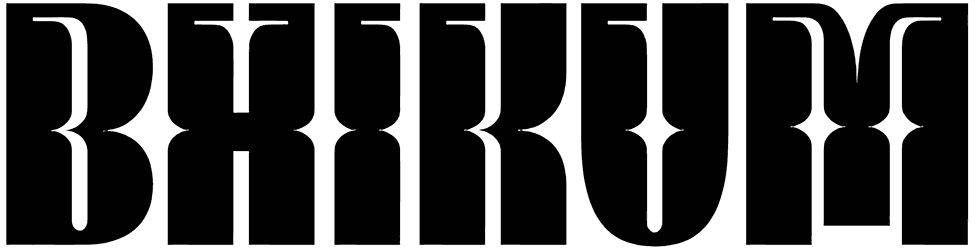
Bhikum Font
To get more attention for your words, you should definitely try working with Bhikum. As a bold font, it can strengthen your text and emphasize your message remarkably.
Even without any numbers or punctuation marks to offer, this groovy font still manages to take care of your fun typography projects, such as your circus posters, T-shirts, candy shop signs, and so on. Basically, anywhere you prefer to highlight a fantasy touch, Bhikum can take care of it for you.